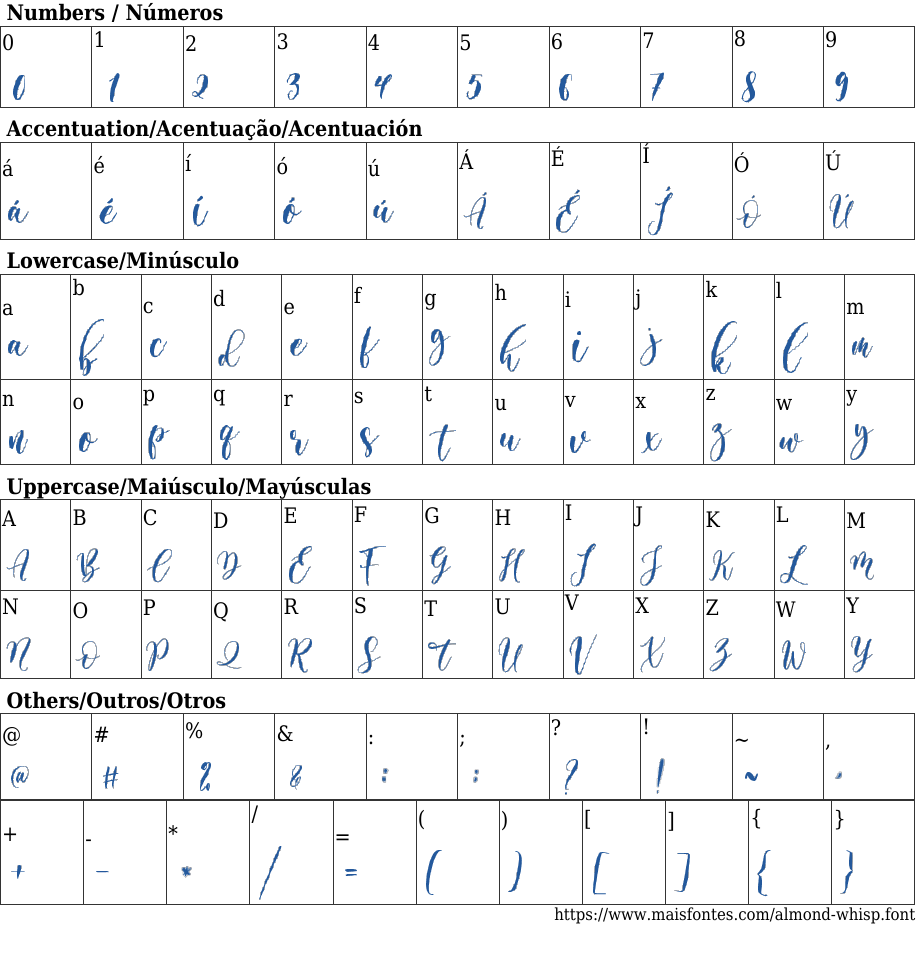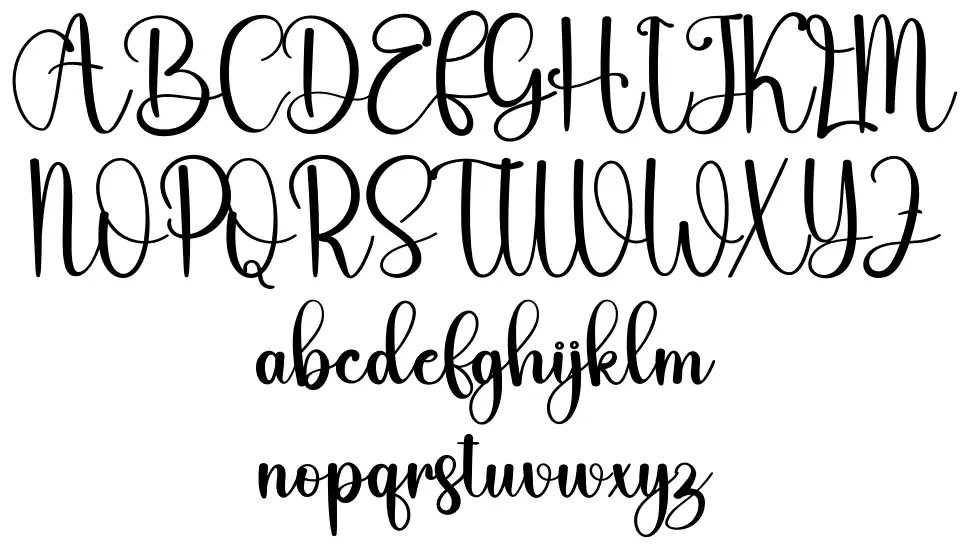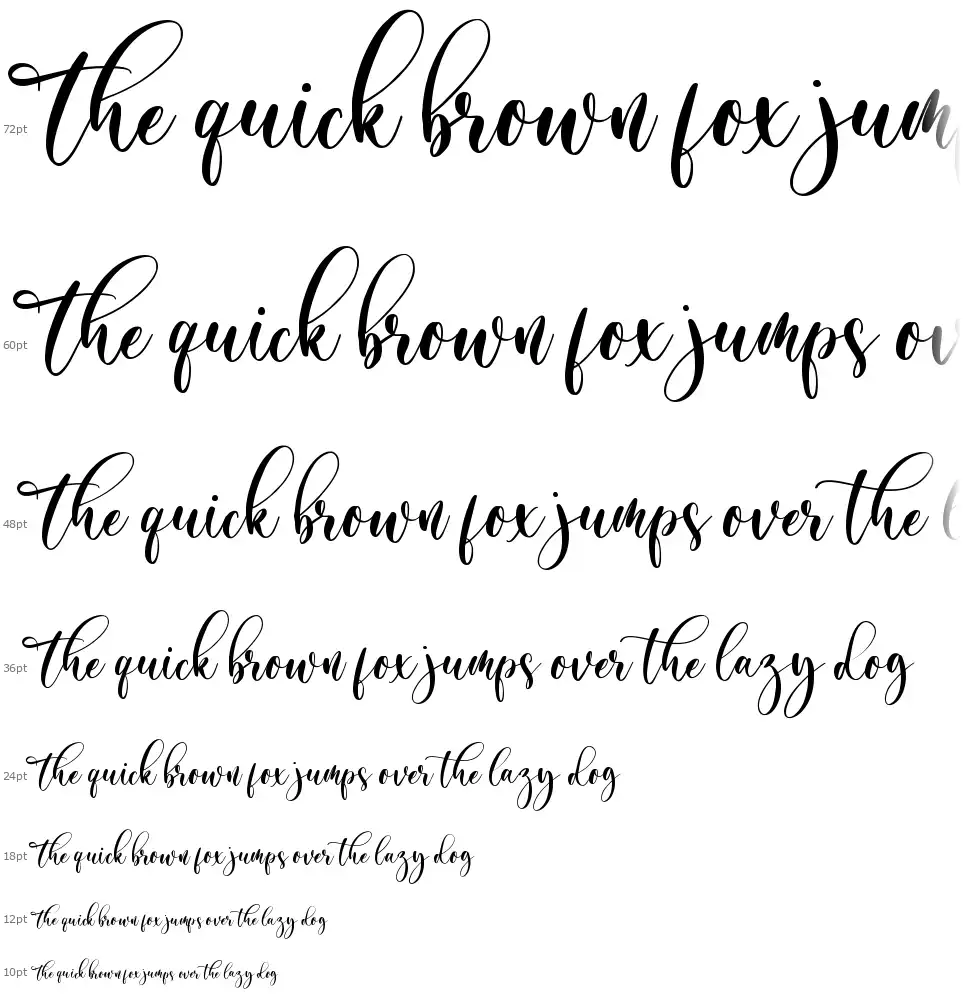
Almond Whisp Font . almond whisp font is an elegant and flowing handwritten font. almond whisp font is an elegant and flowing handwritten font. Almond whisp is a script type font that can be used on any device. It is pua encoded which means you can access all. almond whisp is a beautiful calligraphy font perfect for crafting, branding, invitation, stationery, wedding designs, social media posts, advertisements, product. It is pua encoded which means you can access all of the glyphs. almond whispcalligraphy font is a new calligraphy typeface that feels beautiful classy, elegant, and modern. almond whisp font download is available free from fontget. download and install the almond whisp font by sronstudio. The almond whisp font has been. 108,736 downloads (3 yesterday) 2 comments free for personal use.
108,736 downloads (3 yesterday) 2 comments free for personal use. It is pua encoded which means you can access all of the glyphs. The almond whisp font has been. Almond whisp is a script type font that can be used on any device. almond whisp is a beautiful calligraphy font perfect for crafting, branding, invitation, stationery, wedding designs, social media posts, advertisements, product. It is pua encoded which means you can access all. almond whisp font is an elegant and flowing handwritten font. download and install the almond whisp font by sronstudio. almond whisp font is an elegant and flowing handwritten font. almond whispcalligraphy font is a new calligraphy typeface that feels beautiful classy, elegant, and modern.
Almond Whisp Font The almond whisp font has been. It is pua encoded which means you can access all. It is pua encoded which means you can access all of the glyphs. almond whisp font is an elegant and flowing handwritten font. 108,736 downloads (3 yesterday) 2 comments free for personal use. almond whisp font download is available free from fontget. Almond whisp is a script type font that can be used on any device. almond whispcalligraphy font is a new calligraphy typeface that feels beautiful classy, elegant, and modern. download and install the almond whisp font by sronstudio. almond whisp is a beautiful calligraphy font perfect for crafting, branding, invitation, stationery, wedding designs, social media posts, advertisements, product. The almond whisp font has been. almond whisp font is an elegant and flowing handwritten font.
Almond Font by Harlek studio · Creative Fabrica Almond Whisp Font almond whisp font is an elegant and flowing handwritten font. It is pua encoded which means you can access all of the glyphs. The almond whisp font has been. download and install the almond whisp font by sronstudio. 108,736 downloads (3 yesterday) 2 comments free for personal use. Almond whisp is a script type font that can. Almond Whisp Font.
almond whisp Font Download Free for Desktop & font Almond Whisp Font almond whisp font is an elegant and flowing handwritten font. almond whisp font is an elegant and flowing handwritten font. It is pua encoded which means you can access all. download and install the almond whisp font by sronstudio. The almond whisp font has been. Almond whisp is a script type font that can be used on. Almond Whisp Font.
Almond Whisp font by Sronstudio FontRiver Almond Whisp Font Almond whisp is a script type font that can be used on any device. It is pua encoded which means you can access all of the glyphs. download and install the almond whisp font by sronstudio. almond whisp font is an elegant and flowing handwritten font. almond whisp font is an elegant and flowing handwritten font. . Almond Whisp Font.
Almond whisp Font Sronstudio FontSpace Almond Whisp Font almond whisp font is an elegant and flowing handwritten font. almond whispcalligraphy font is a new calligraphy typeface that feels beautiful classy, elegant, and modern. 108,736 downloads (3 yesterday) 2 comments free for personal use. The almond whisp font has been. almond whisp is a beautiful calligraphy font perfect for crafting, branding, invitation, stationery, wedding designs,. Almond Whisp Font.
Almond Whisp Font download free Almond Whisp Font 108,736 downloads (3 yesterday) 2 comments free for personal use. almond whisp font is an elegant and flowing handwritten font. download and install the almond whisp font by sronstudio. It is pua encoded which means you can access all. almond whisp is a beautiful calligraphy font perfect for crafting, branding, invitation, stationery, wedding designs, social media. Almond Whisp Font.
Almond font by Harlek Studio FontRiver Almond Whisp Font The almond whisp font has been. download and install the almond whisp font by sronstudio. almond whisp font download is available free from fontget. almond whispcalligraphy font is a new calligraphy typeface that feels beautiful classy, elegant, and modern. It is pua encoded which means you can access all of the glyphs. It is pua encoded which. Almond Whisp Font.
From fancy-fonts.com
Almond Whisp Font almond whisp font download is available free from fontget. The almond whisp font has been. 108,736 downloads (3 yesterday) 2 comments free for personal use. almond whispcalligraphy font is a new calligraphy typeface that feels beautiful classy, elegant, and modern. It is pua encoded which means you can access all. almond whisp is a beautiful calligraphy. Almond Whisp Font.
almond whisp font Almond Whisp Font It is pua encoded which means you can access all of the glyphs. It is pua encoded which means you can access all. almond whisp font is an elegant and flowing handwritten font. 108,736 downloads (3 yesterday) 2 comments free for personal use. almond whispcalligraphy font is a new calligraphy typeface that feels beautiful classy, elegant, and. Almond Whisp Font.
Almond Font by · Creative Fabrica Almond Whisp Font download and install the almond whisp font by sronstudio. almond whispcalligraphy font is a new calligraphy typeface that feels beautiful classy, elegant, and modern. It is pua encoded which means you can access all. It is pua encoded which means you can access all of the glyphs. almond whisp font is an elegant and flowing handwritten font.. Almond Whisp Font.
Almond Whisp Font by Sronstudio · Creative Fabrica Almond Whisp Font 108,736 downloads (3 yesterday) 2 comments free for personal use. almond whispcalligraphy font is a new calligraphy typeface that feels beautiful classy, elegant, and modern. almond whisp font is an elegant and flowing handwritten font. almond whisp font is an elegant and flowing handwritten font. It is pua encoded which means you can access all of. Almond Whisp Font.